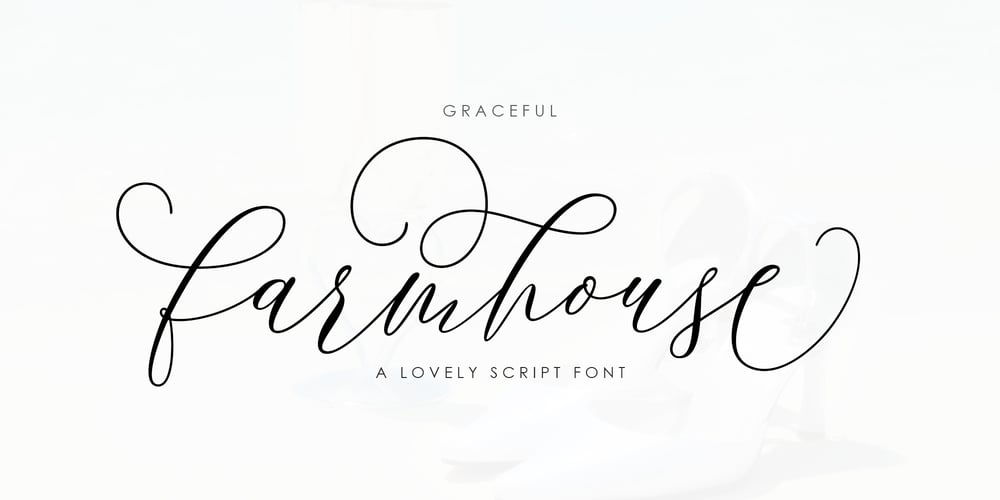
Graceful Farmhouse
Graceful Farmhouse font
Graceful Farmhouse Font Family was designed by Muriza Moriztype and published by moriztype. Graceful Farmhouse contains 1 styles and family package options. Graceful Farmhouse Script is a stunning, attentive and classy script font, comes in a modern and classic, wavy style, built to meet the needs of your next design project. Graceful farmhouse Script can be used for various purposes. such as title, signature, logo, correspondence, wedding invitation, letterhead, nameplate, label, newsletter, poster, badge, etc.Graceful Farmhouse Script contains a full set of lowercase and uppercase letters, a wide variety of punctuation marks, numbers, and multilingual support. This font also has several ligatures, Swash, and Stylistic Sets, for those of you who have opentype software (eg Photoshop/Illustrator, Corel Draw).